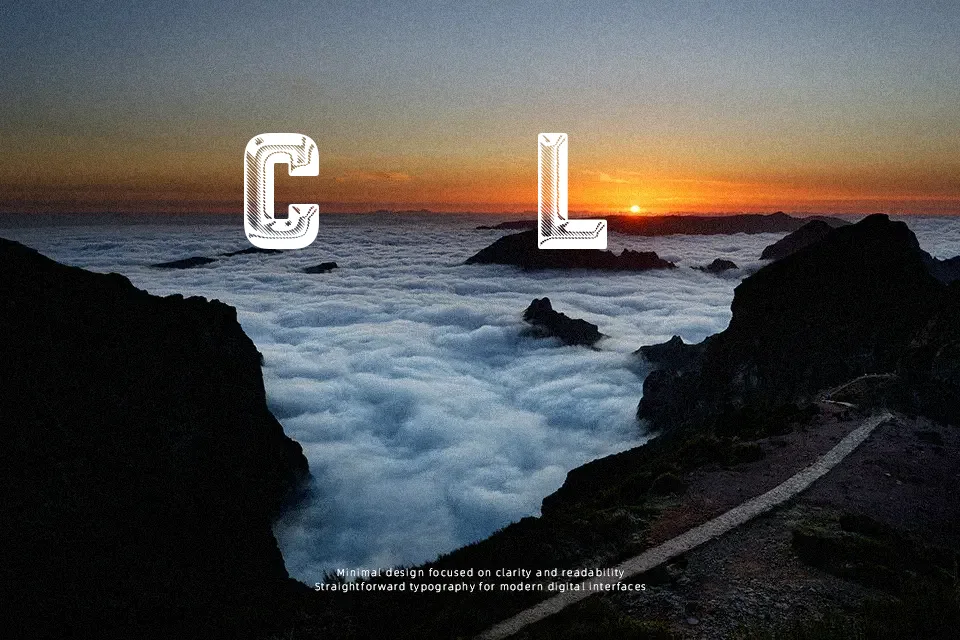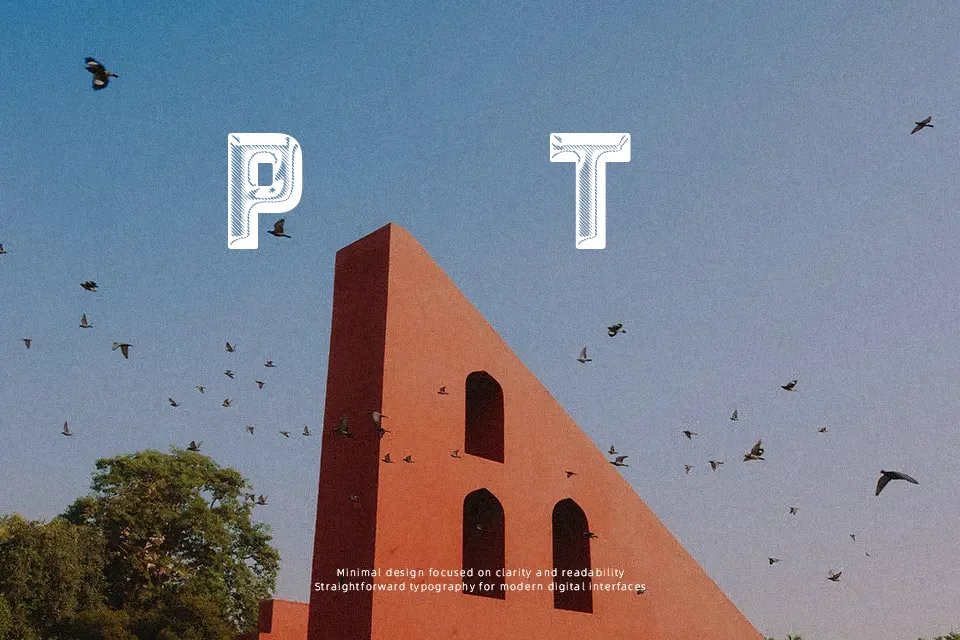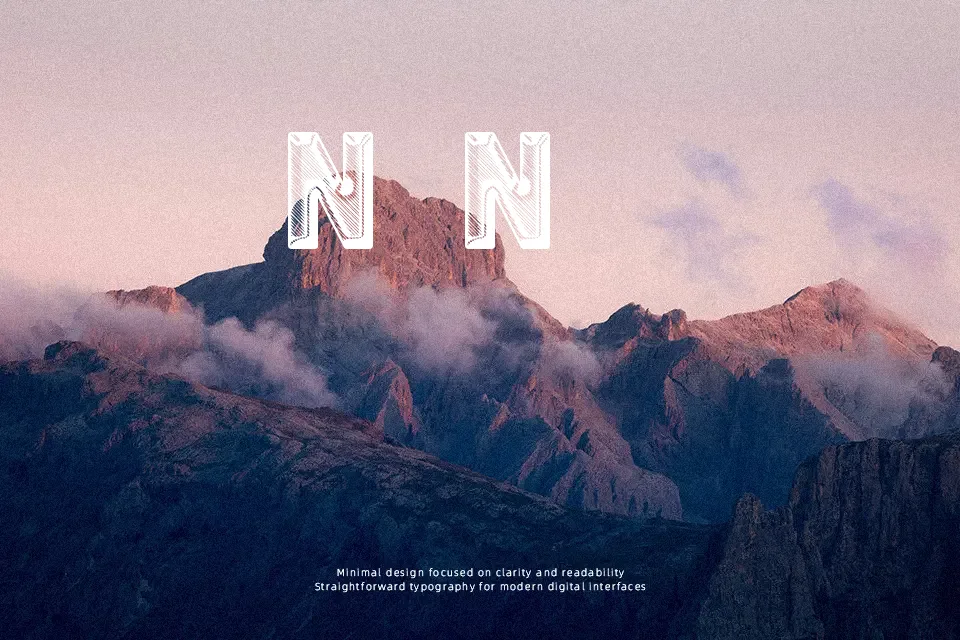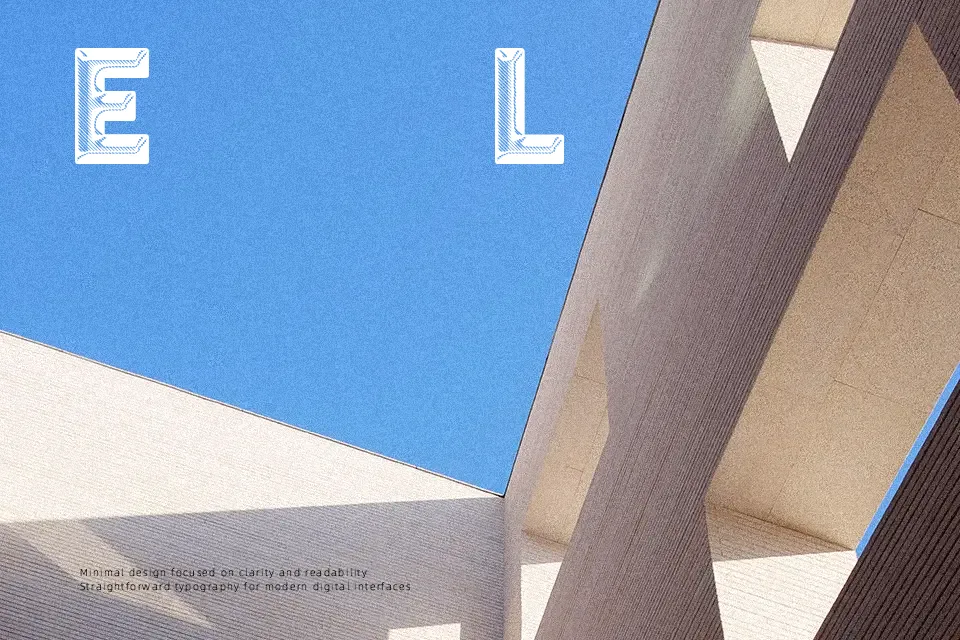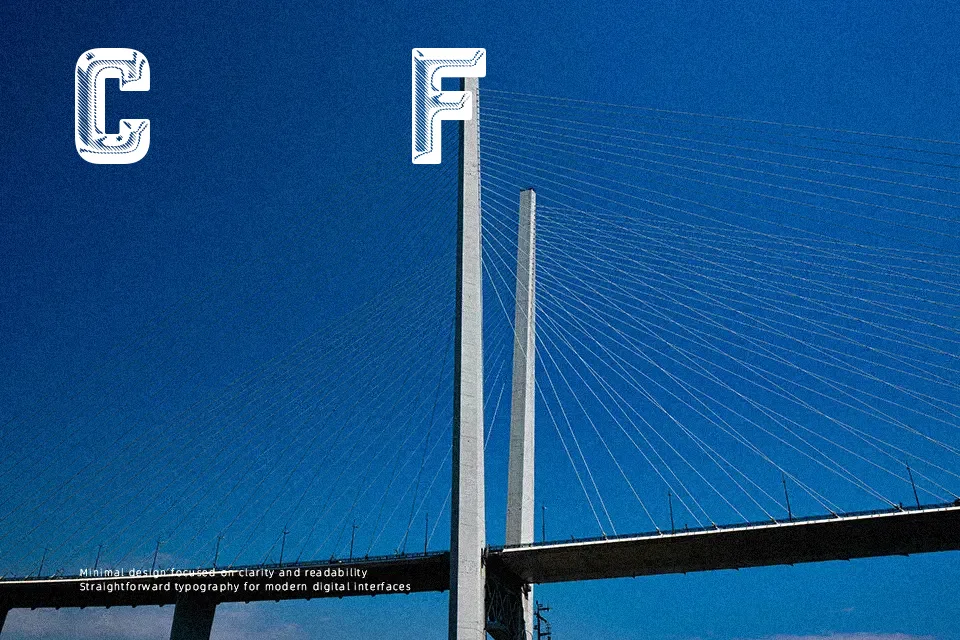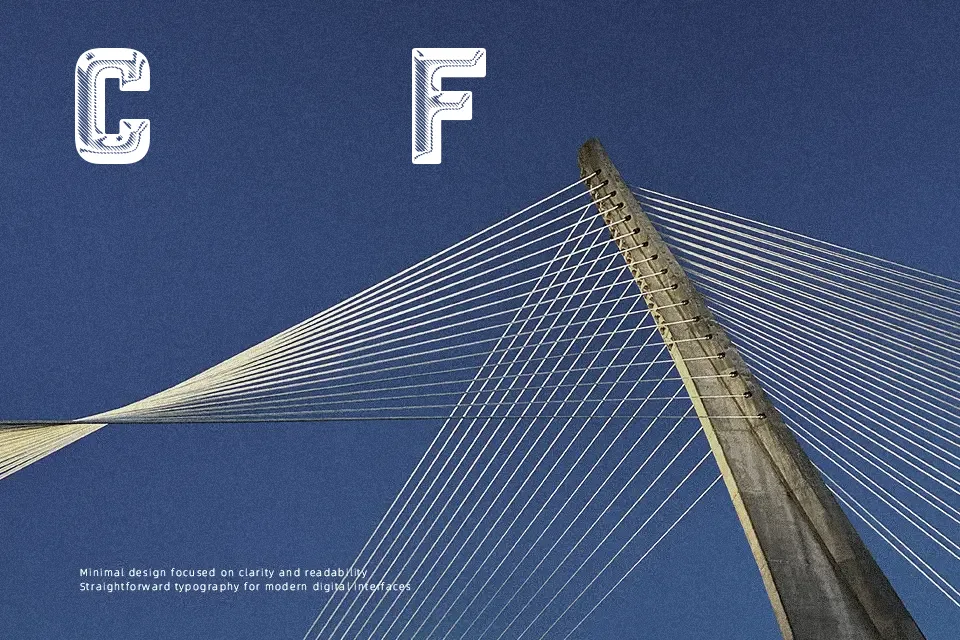
Silver Medal Font
Silver Medal Font delivers heavy, faceted letterforms defined by sharp geometric angles and beveled interior contours that evoke metallic relief. Each glyph exhibits consistent stroke weight, angular joins, and compact horizontal proportions, creating a bold decorative presence across titles. Tight character spacing maintains visual rhythm in large headlines, although it reduces clarity when set at smaller display sizes. The typeface performs best in high-impact applications such as esports graphics, sports event banners, and trophy merchandise. However, the complex dimensional styling and dense shapes make the design less suitable for continuous body text or small interface labels.
Best For: sports tournament posters, esports team graphics, championship event headlines, gaming merchandise
Not Ideal For: continuous body text, mobile app interfaces, dense spreadsheet data, long editorial paragraphs
Perfect for branding, gaming, and headline, with a bold and decorative style.